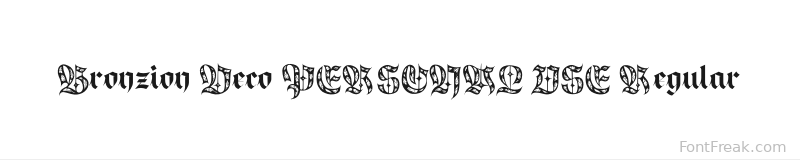
Bronzion Deco PERSONAL USE Regular
Bronzion Deco PERSONAL USE Regular is a striking decorative font designed by Mans Greback, embodying a unique blend of elegance and artistic flair. This font falls into the decorative category, making it an excellent choice for projects that aim to capture attention through imaginative typography. Its design features a moderate stroke weight combined with intricate decorative elements that evoke a sense of sophistication and creativity. The contrast between thick and thin lines adds depth, while the spacing between characters is thoughtfully balanced, allowing for legibility without sacrificing style.
This font is particularly well-suited for a variety of creative applications. Wedding invitations can benefit from its romantic and whimsical qualities, setting the perfect tone for a special day. Movie posters can utilize Bronzion Deco to capture the essence of a dramatic or fantasy genre, drawing viewers in with its captivating style. Restaurant menus can feature this font to enhance the dining experience, making the menu visually appealing and memorable. Additionally, content creators can use it in social media graphics to make their posts stand out in a crowded digital landscape.
The target audience for Bronzion Deco PERSONAL USE Regular includes graphic designers, small business owners, and content creators looking for a unique typeface to elevate their branding and marketing materials. This font is particularly appealing to those who appreciate a vintage aesthetic with a modern twist.
What truly sets Bronzion Deco PERSONAL USE Regular apart is its ability to combine artistic expression with functionality. The intricate details and decorative elements create a visual impact that is hard to ignore, making it an excellent choice for anyone looking to leave a lasting impression. For those interested, the Bronzion Deco PERSONAL USE Regular font free download is an opportunity to explore its potential in various design projects.